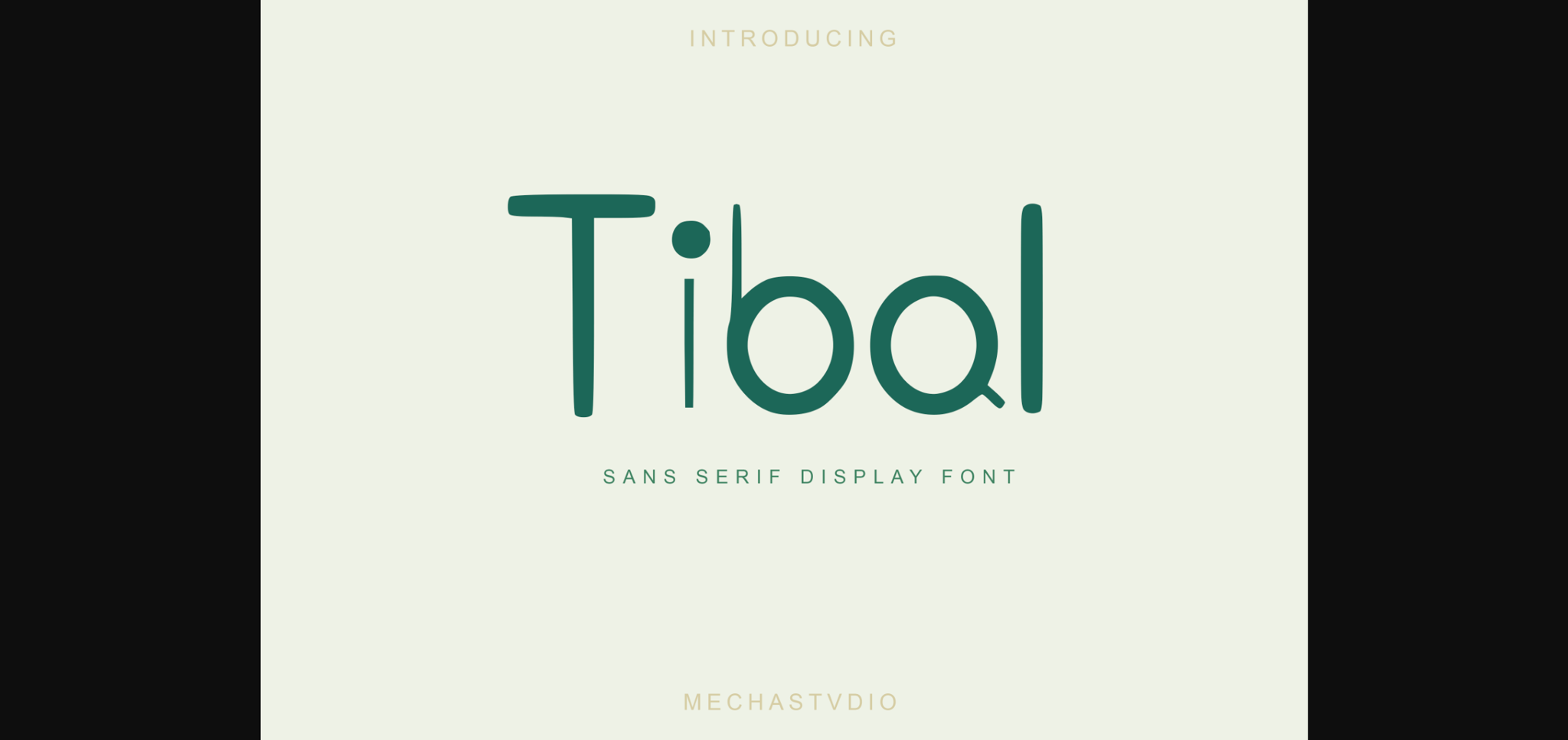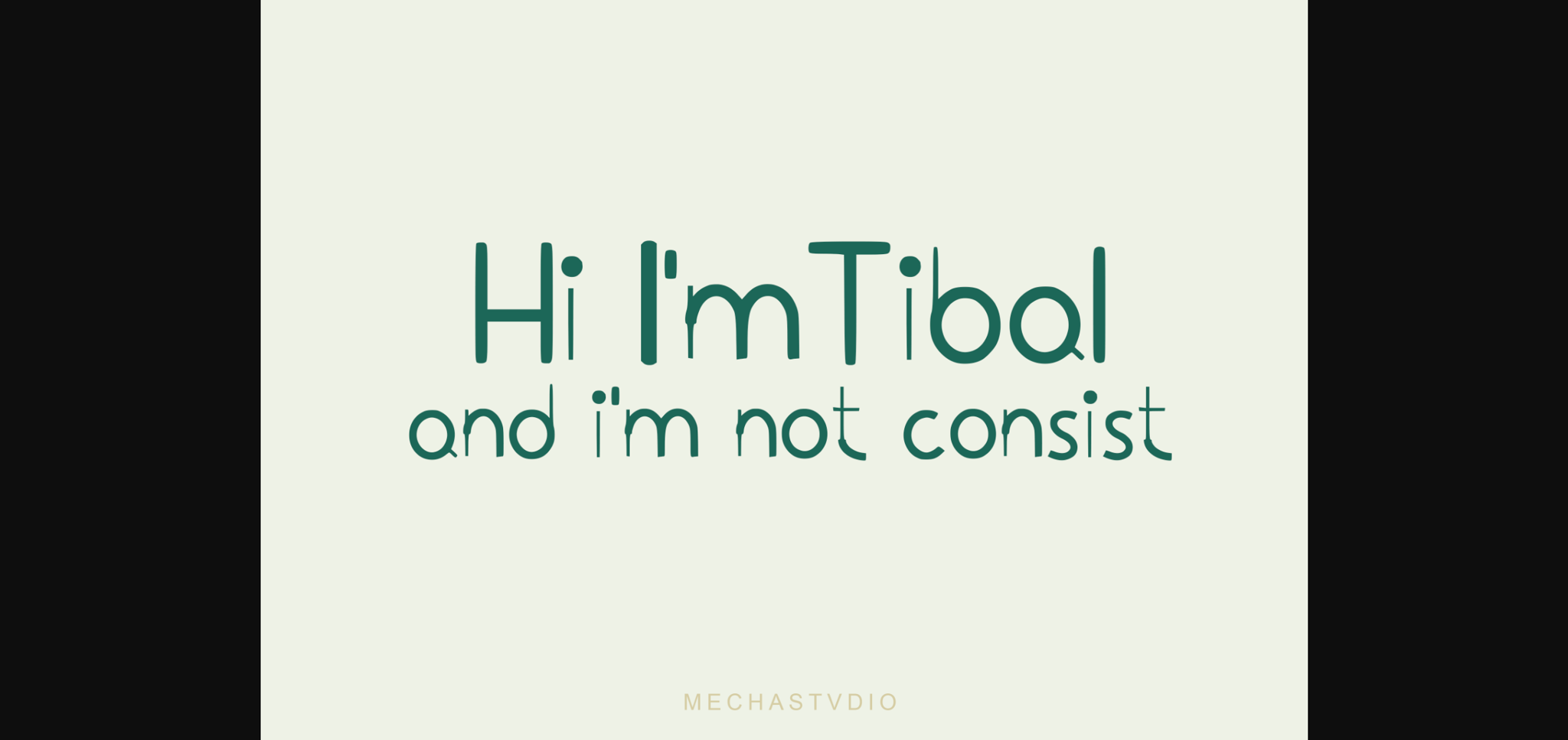
Tibal Font
About Tibal Font
Tibal is a cool, simple, and unique sans serif font but can be used as a display font. Its unique style is perfect for all your projects as it has the potential to transform them into a true standout.